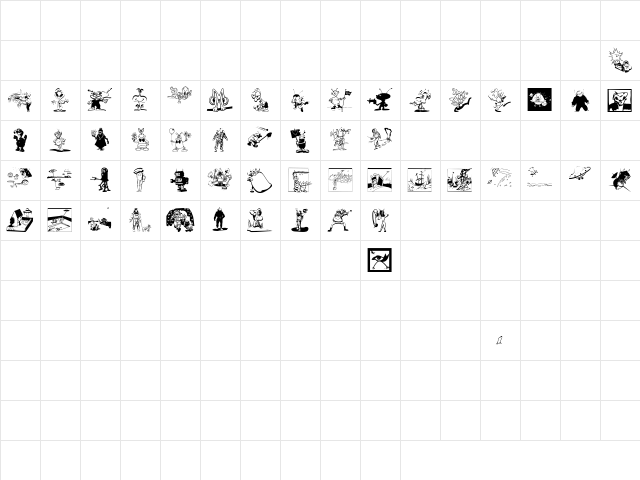
SpaceStationHokuspokus Regular
Design Context for SpaceStationHokuspokus
SpaceStationHokuspokus is a composed and adaptable typeface that performs quietly and consistently across a wide range of design contexts.